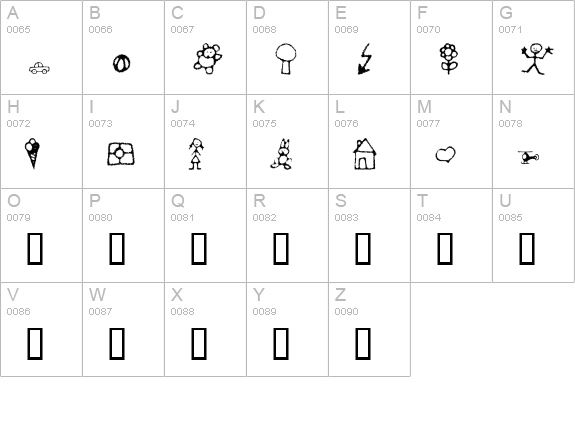
Crayon Kids 1 font is a playful and whimsical typeface that brings a youthful and creative touch to any design project. With its charming hand-drawn style, this font captures the essence of childhood innocence and imagination. Perfect for children's books, posters, invitations, and more, Crayon Kids 1 font adds a fun and colorful element to your designs. Best of all, Crayon Kids 1 font is available for free download at FontsMarket.com, making it easily accessible for designers looking to add a touch of fun to their projects. Embrace the joy and creativity of childhood with Crayon Kids 1 font today!